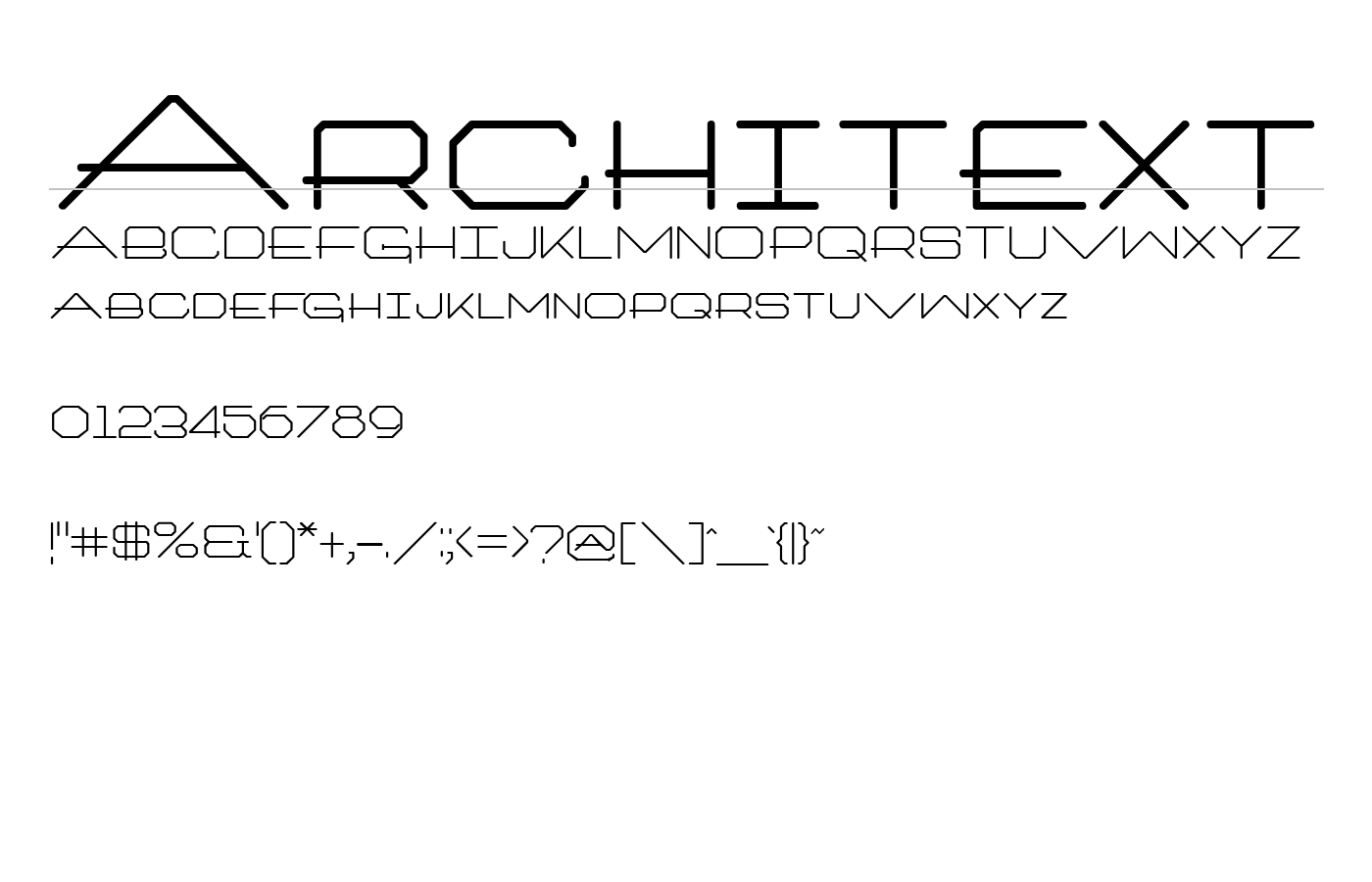
Architext is a sleek, modern sans serif font characterized by its geometric, octagonal letterforms and thin, consistent strokes that give it a technical and architectural feel. With its clean lines and open structure, it works well for futuristic branding, technical design projects, and minimalist editorial layouts, where clarity and an innovative edge are essential. Its unique style makes it ideal for headlines, logos, and creative digital uses seeking a contemporary and precise aesthetic.
Architext Font